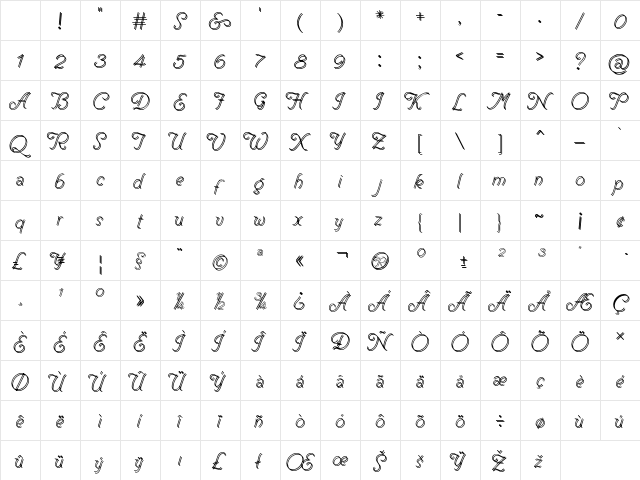
Renania Double Line is a composed and adaptable typeface that performs quietly and consistently across a wide range of design contexts.
Pro Tip: Use Renania Double Line in both headline and body roles to test its range before committing to a single application.